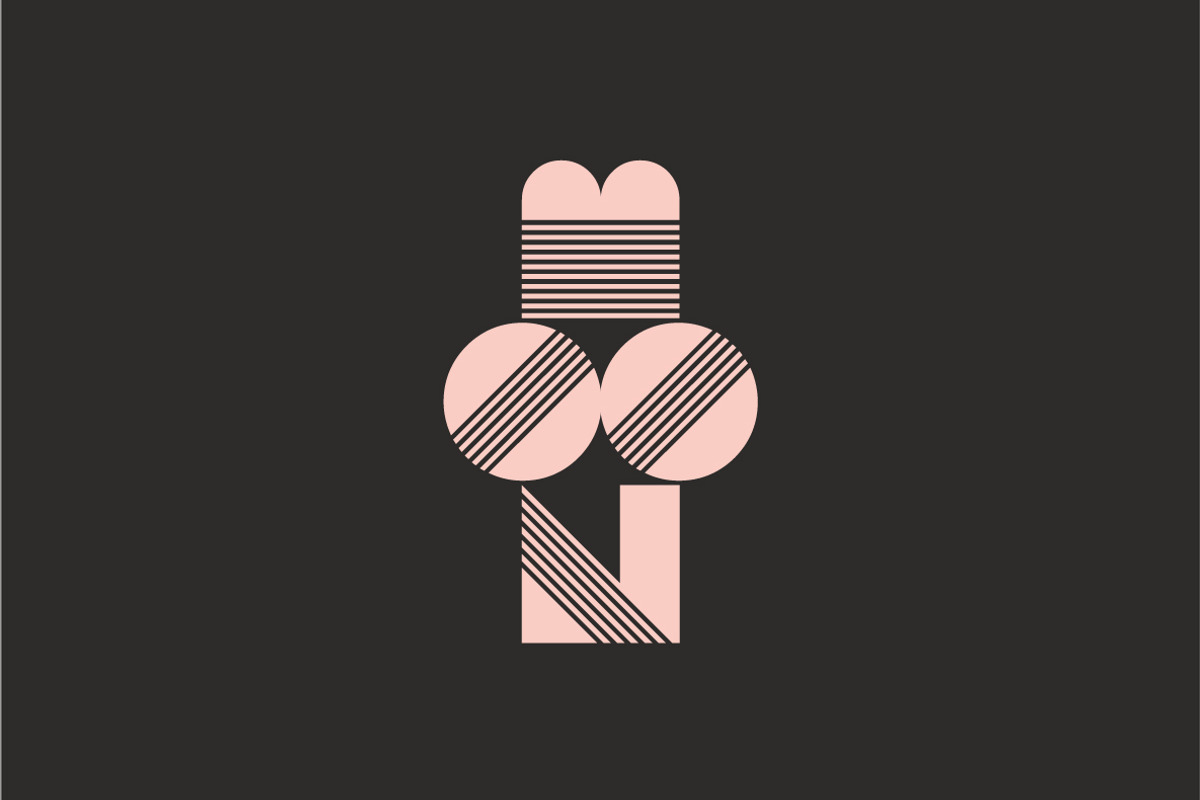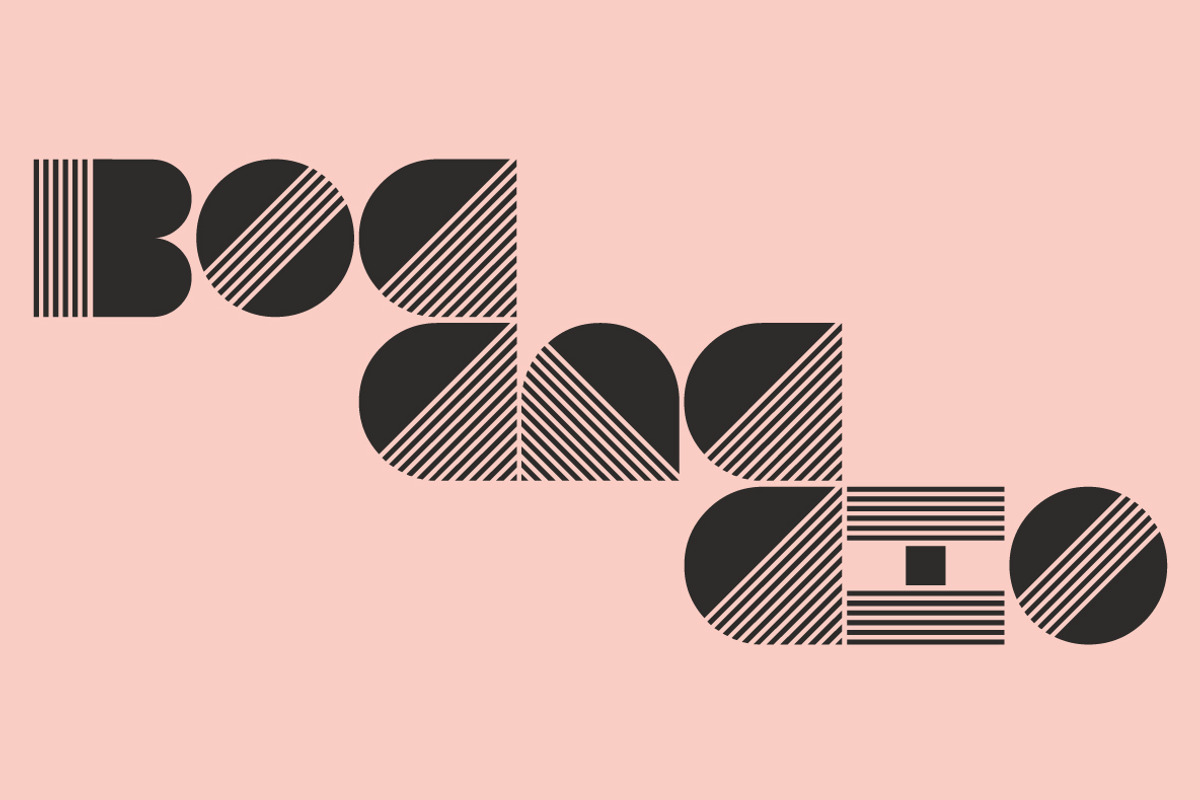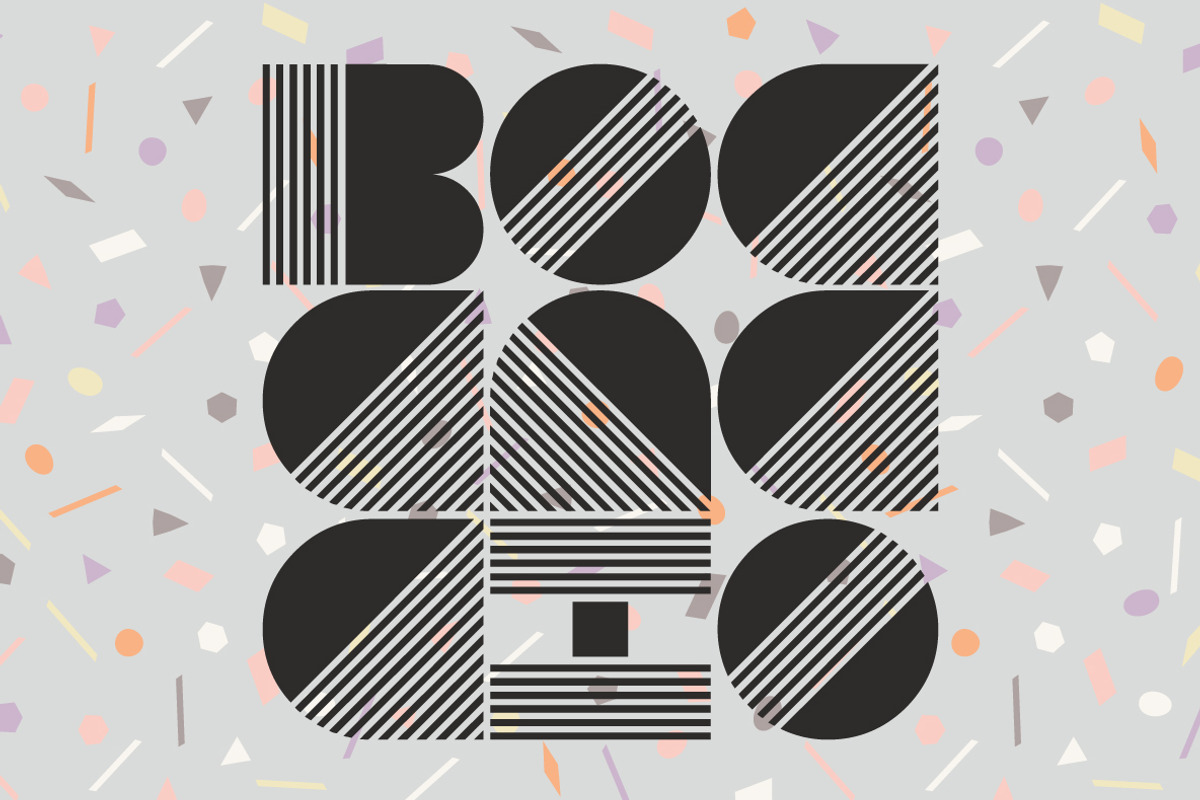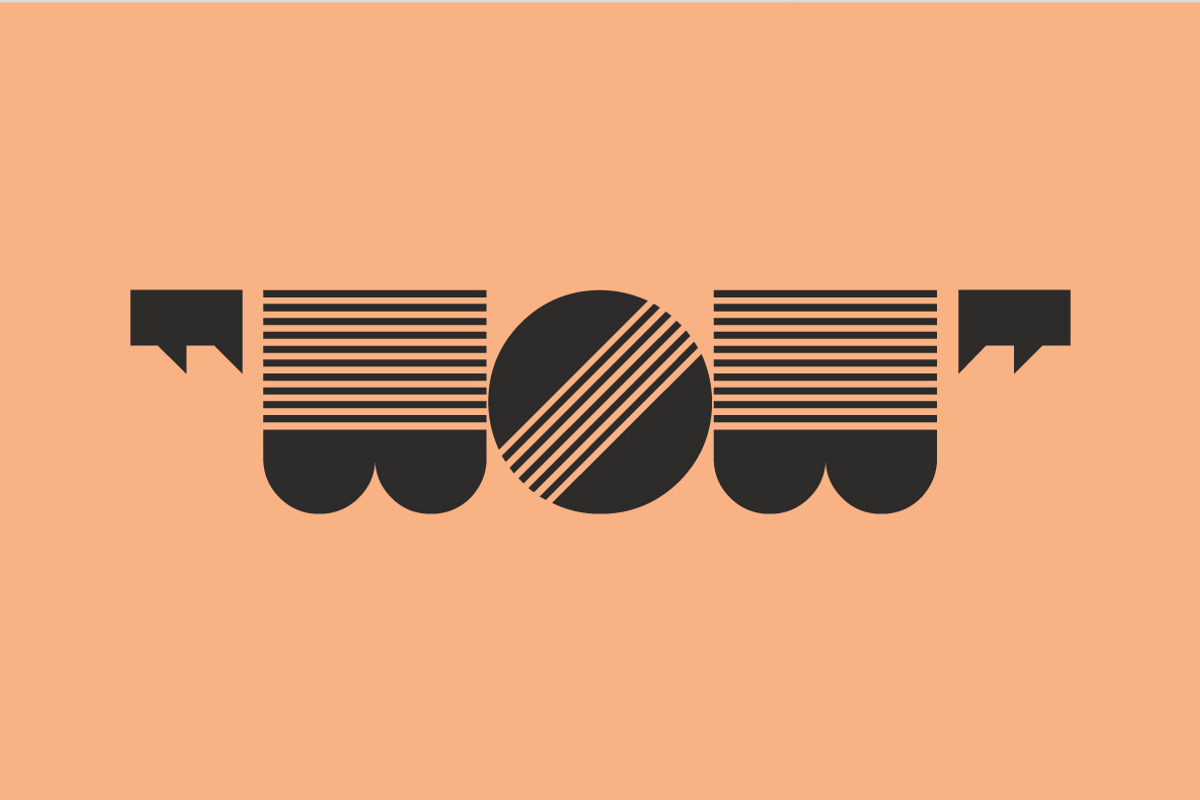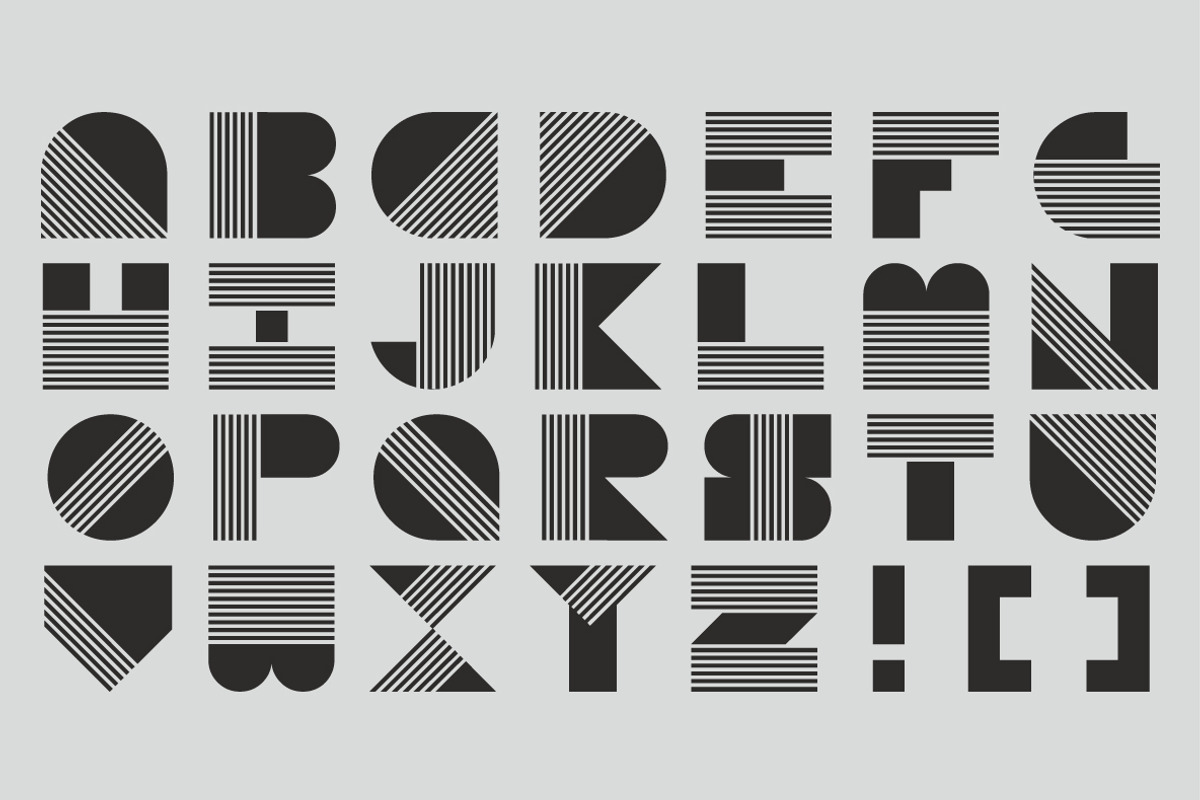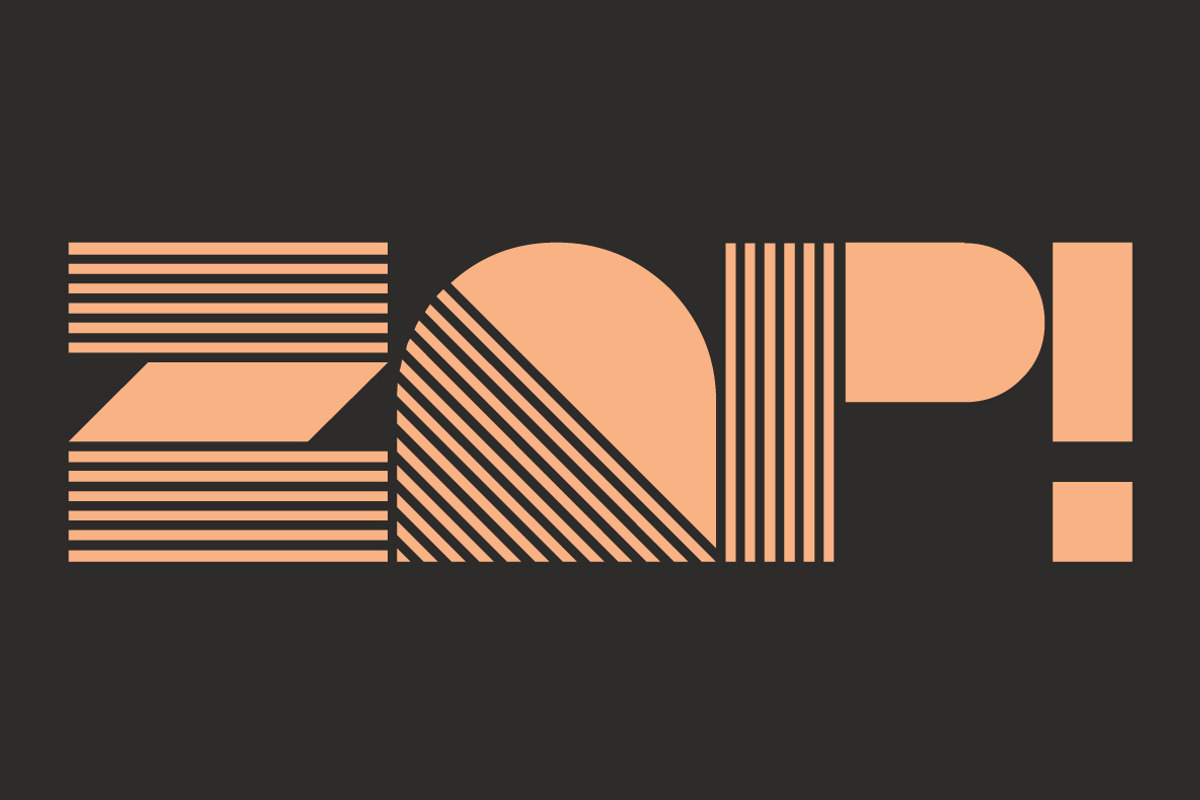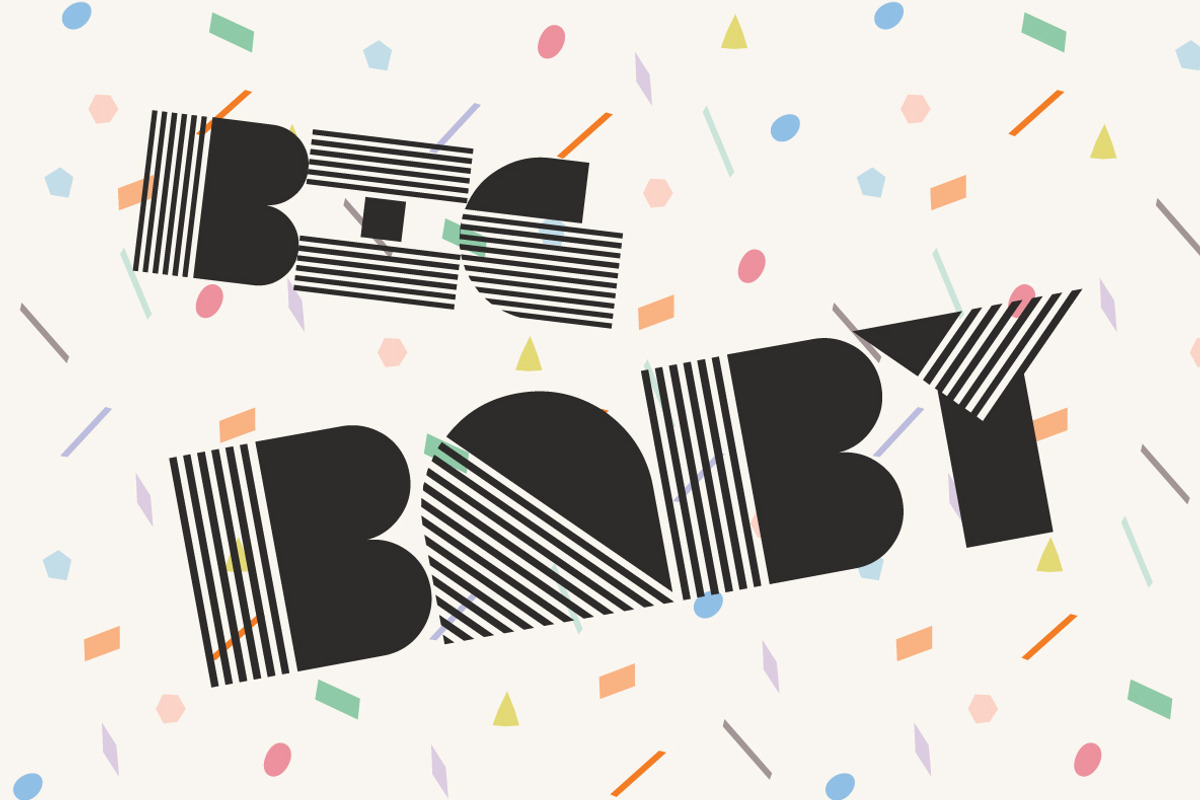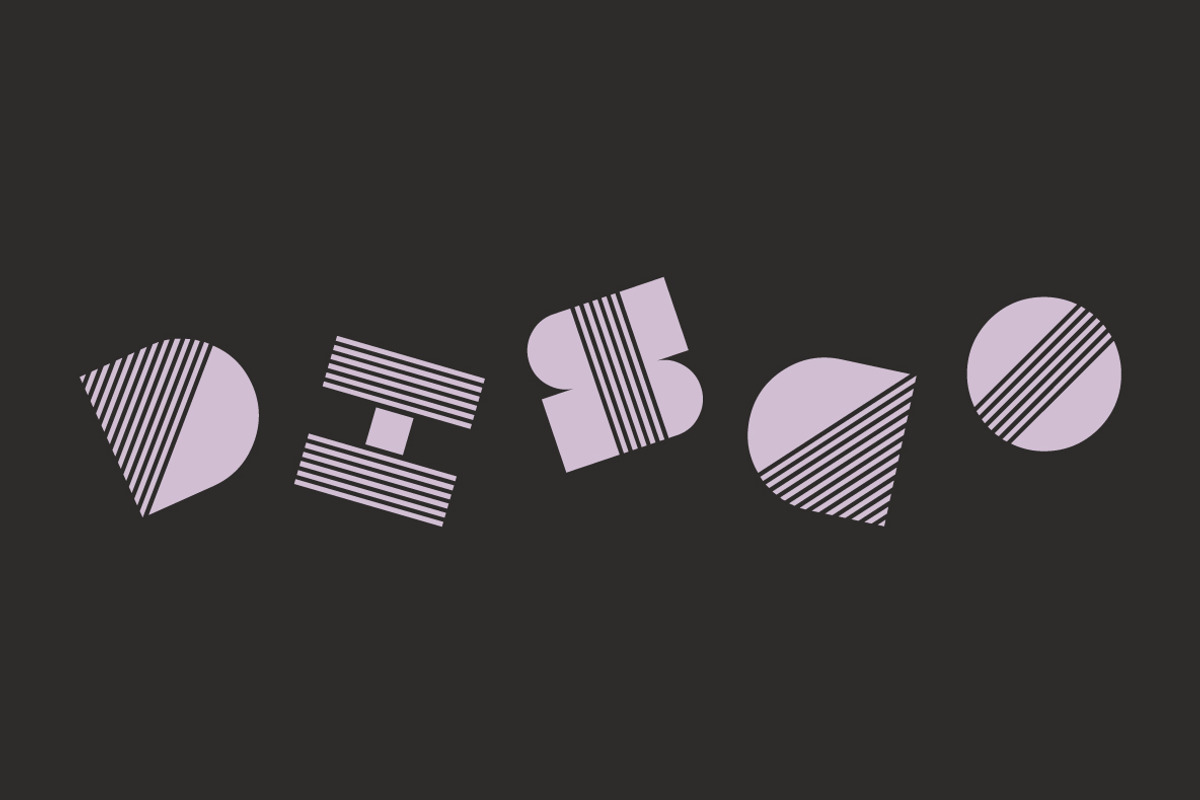
Boccaccio Font
Boccaccio Font by Hello Mart is a font selected for branding, posters, packaging, typography.
Why Boccaccio Font is worth a look
Boccaccio Font by Hello Mart fits naturally into Branding, posters, packaging, typography.